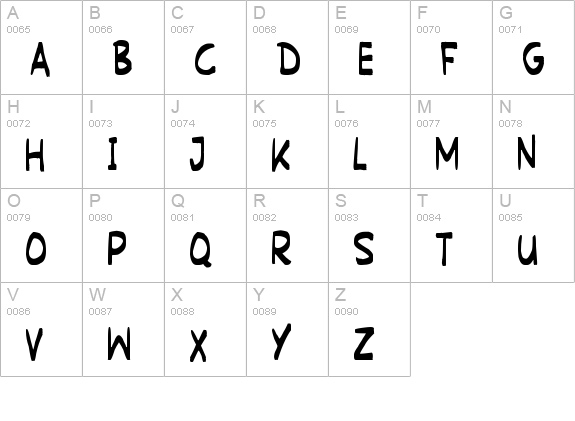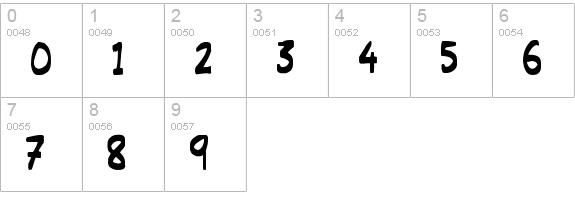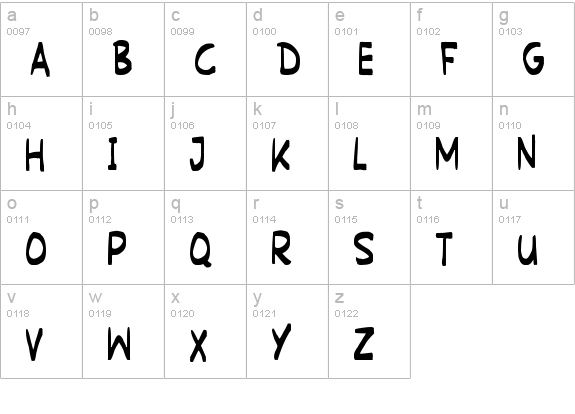
Martians Signpost Font Details
Martians Signpost is a free for personal use font in the Script > Handwritten category, designed by Darrell Flood. It has been downloaded 85 times and is available for Windows, Mac and Linux.
Martians Signpost font is a whimsical and playful typeface that is perfect for adding a touch of fun to your designs. With its unique and eye-catching letterforms, this font is sure to make a statement wherever it is used. The bold strokes and quirky details give Martians Signpost a distinctive look that sets it apart from other fonts.